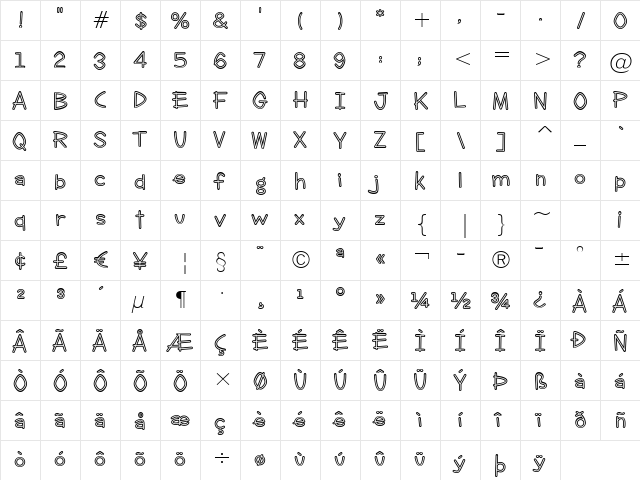
Clever Duke BTN Smooth Inline Regular
Design Context for Clever Duke BTN Smooth Inline Typeface
Clever Duke BTN Smooth Inline brings ornamental detail and strong personality to headlines and identities, where visual impact matters more than quiet functionality.
Font Pairing: Pair with a clean neutral sans-serif for body copy to let Clever Duke BTN Smooth Inline's character lead without overwhelming the composition.
Pro Tip: Treat Clever Duke BTN Smooth Inline as the centrepiece of your typographic hierarchy. One strong heading set in a decorative face can carry an entire layout.